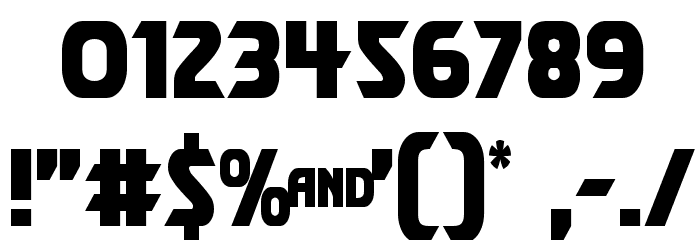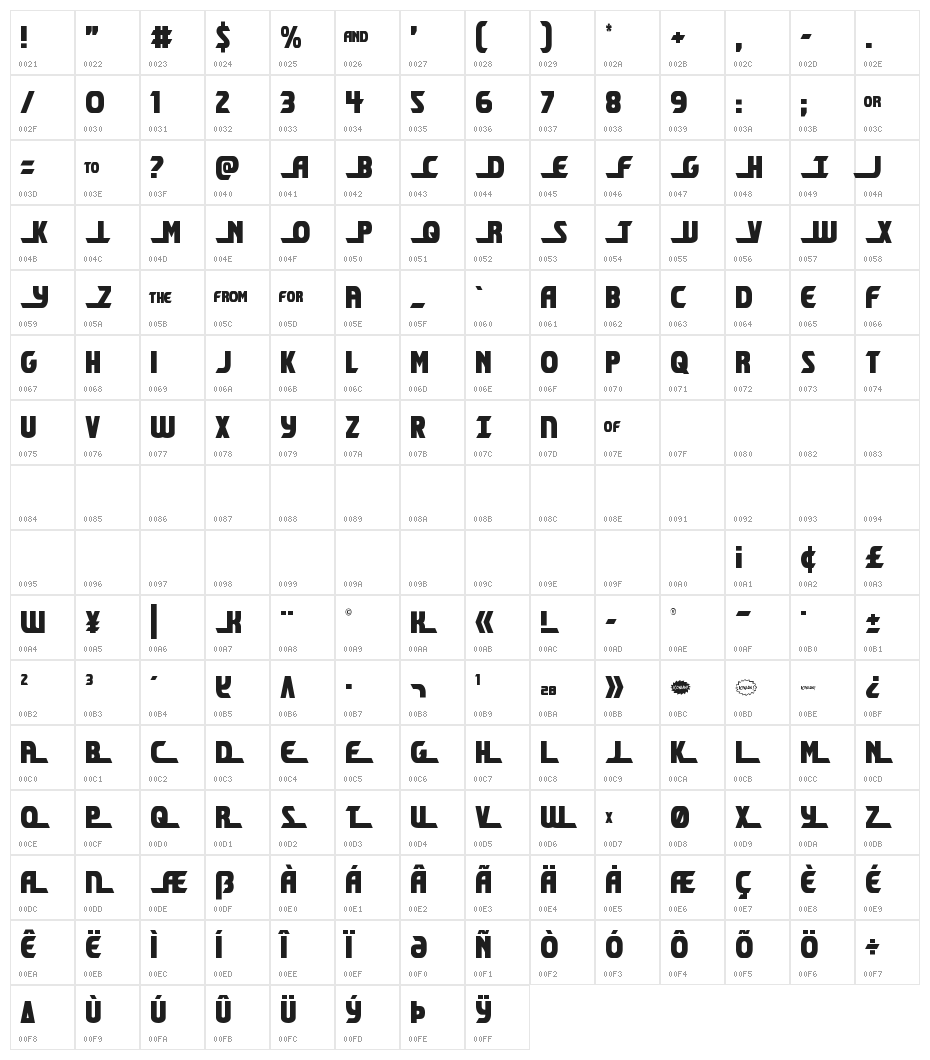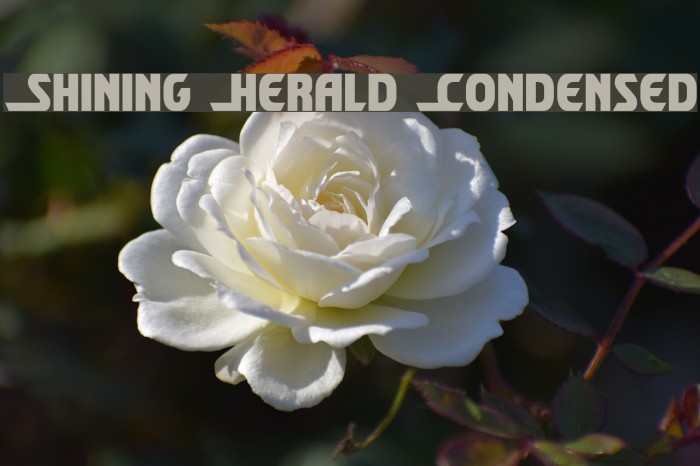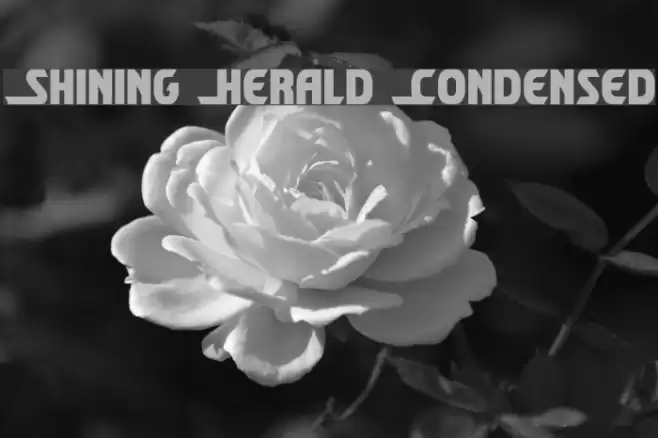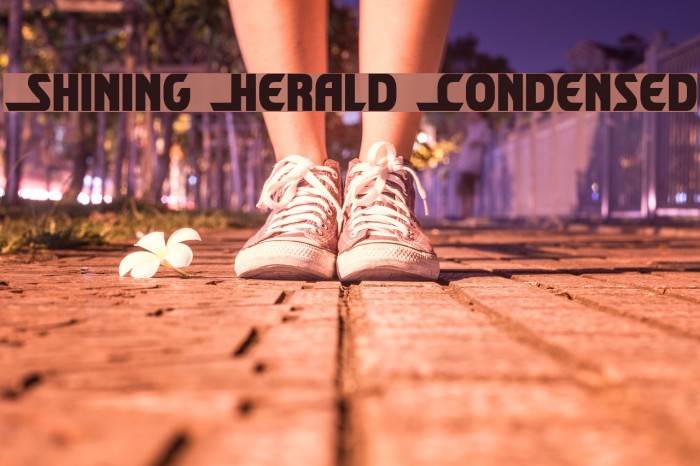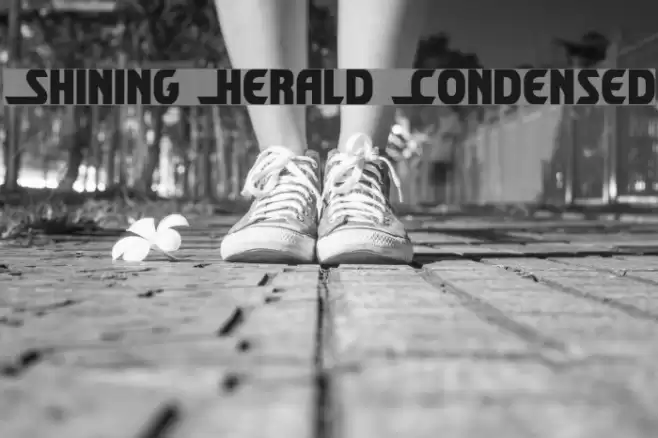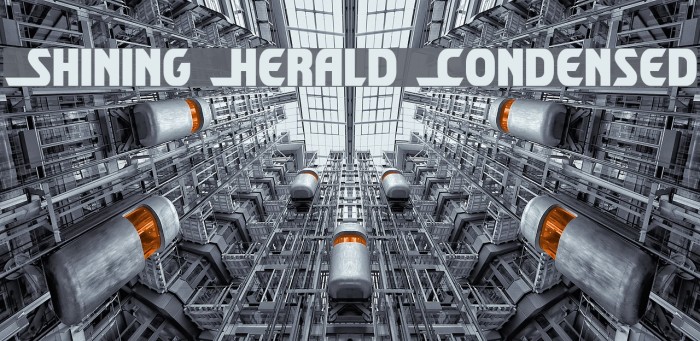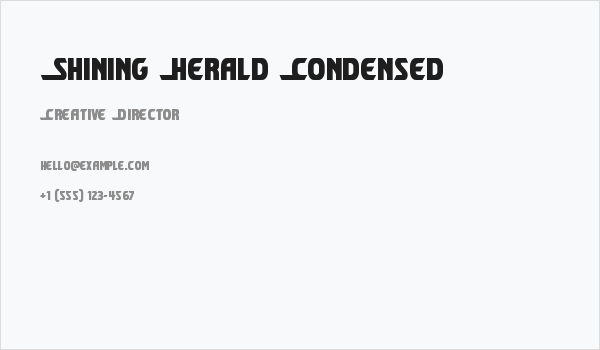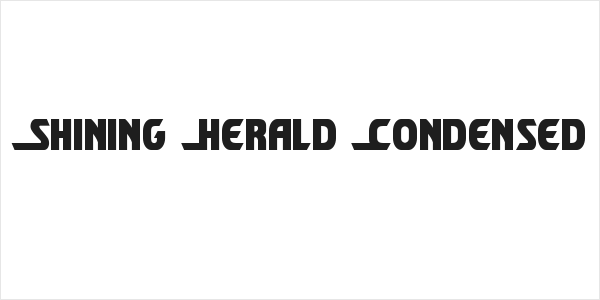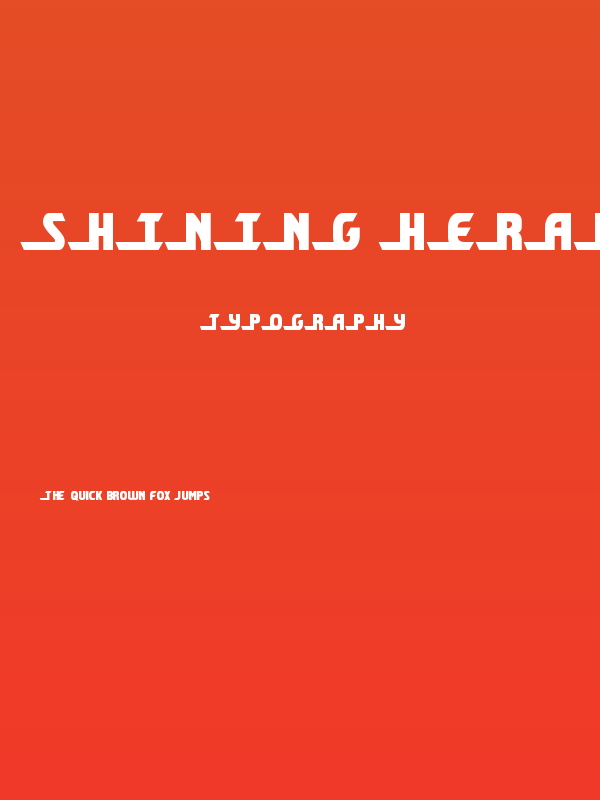
Shining Herald Condensed Font
Shining Herald Condensed Description
This font features a bold and striking design with a condensed width, making it ideal for impactful headlines and titles. The uppercase letters are distinct with sharp angles and a geometric style, giving a modern and futuristic feel. The lowercase letters maintain the same boldness, ensuring consistency across text. Numbers are equally bold and clear, enhancing readability. Special characters are designed to match the overall aesthetic, providing a cohesive look. The font's strong presence makes it suitable for branding, posters, and any project requiring a bold statement.